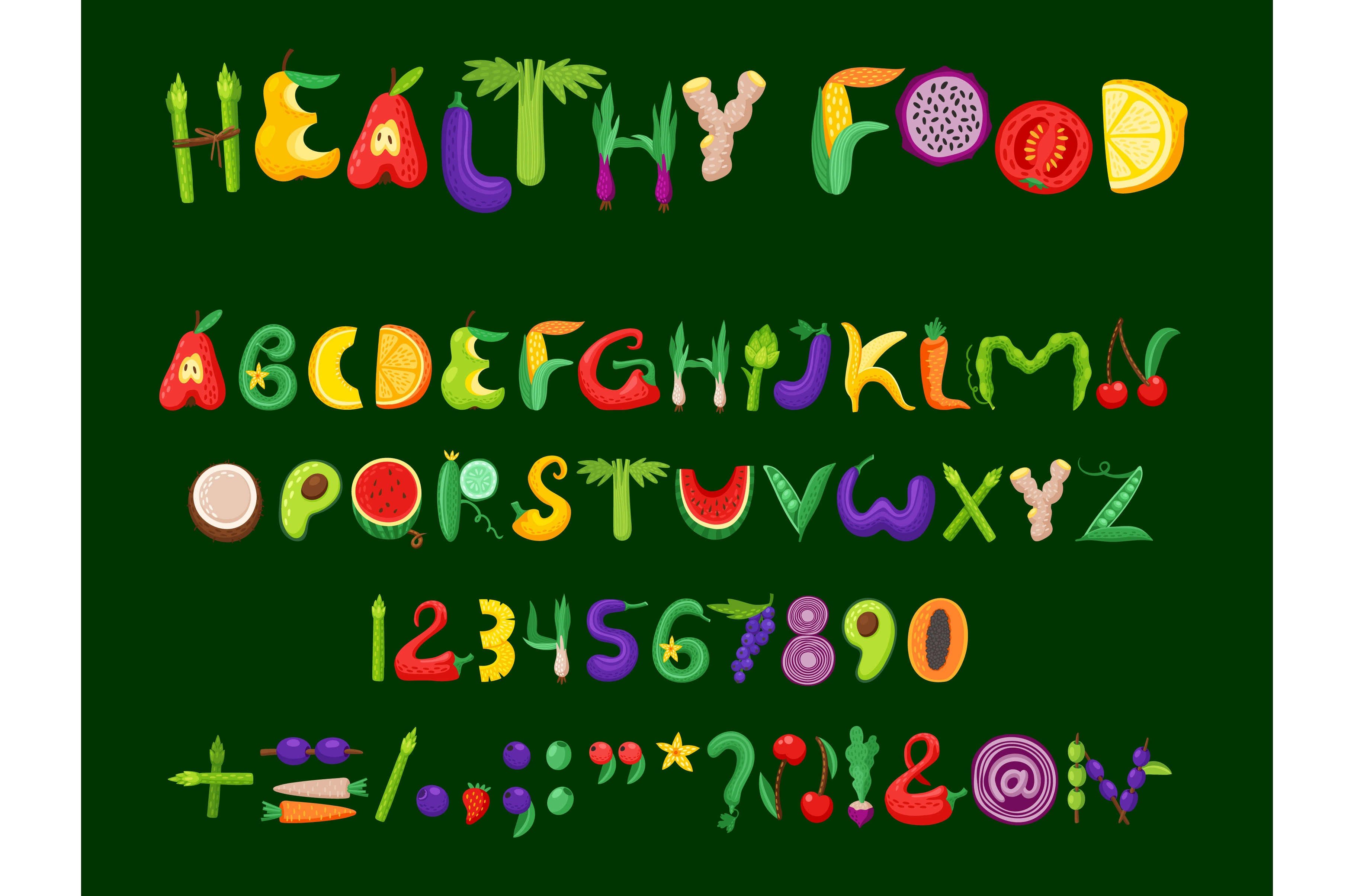
Cartoon fruits, vegetables font
Cartoon fruit and vegetable font, healthy type or farm crop alphabet of summer food, vector typeface. Fruits and vegetables ABC, kid typeset font or typography text with asparagus, orange and avocado